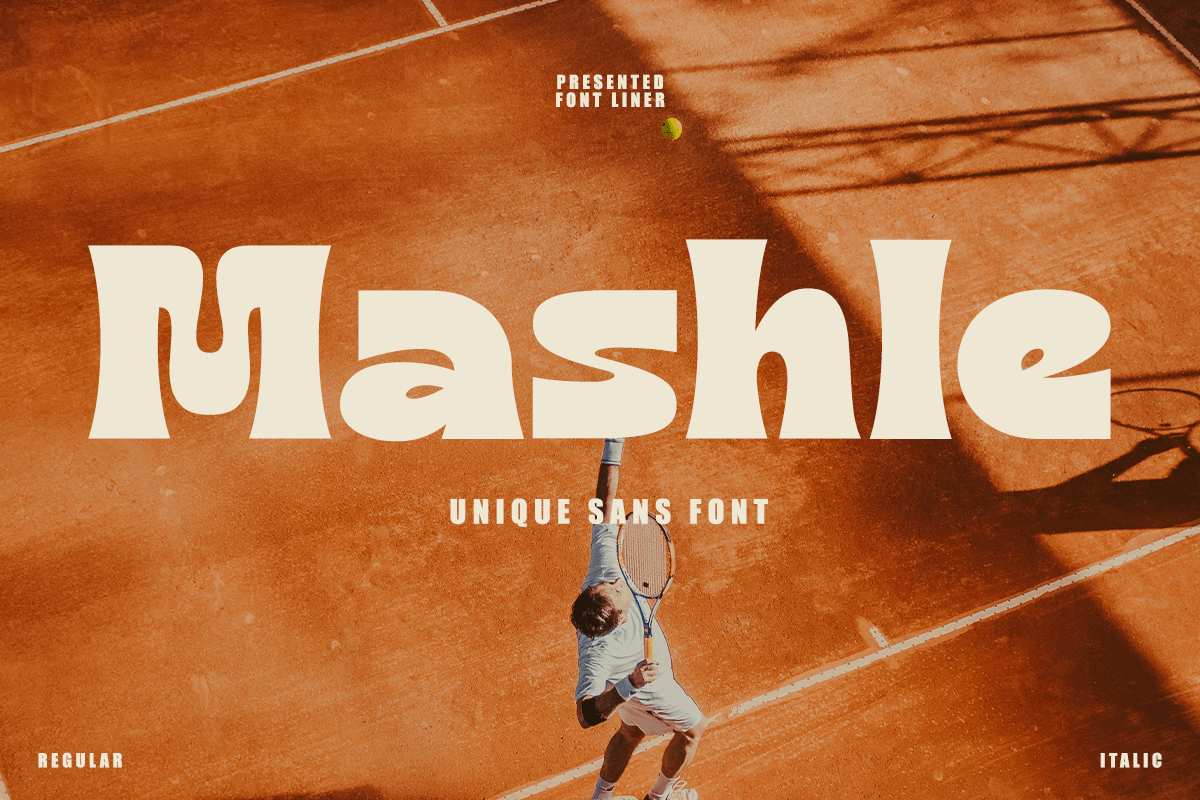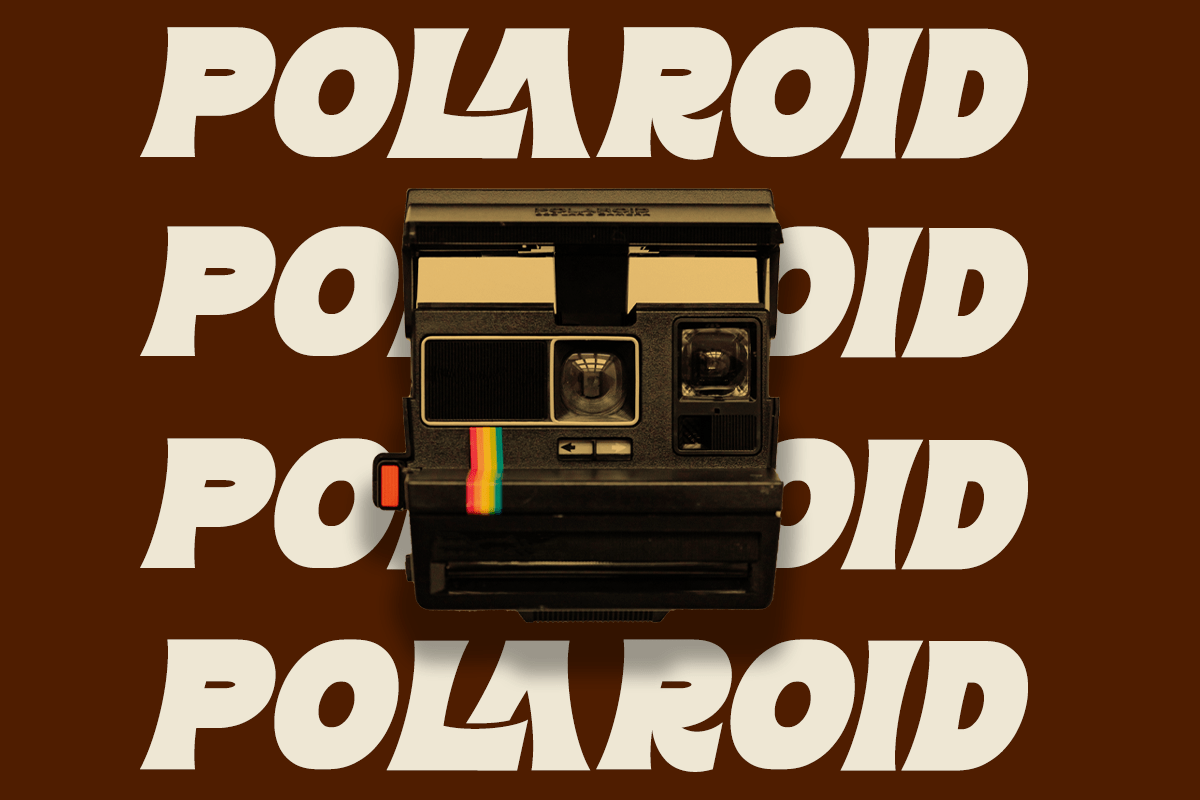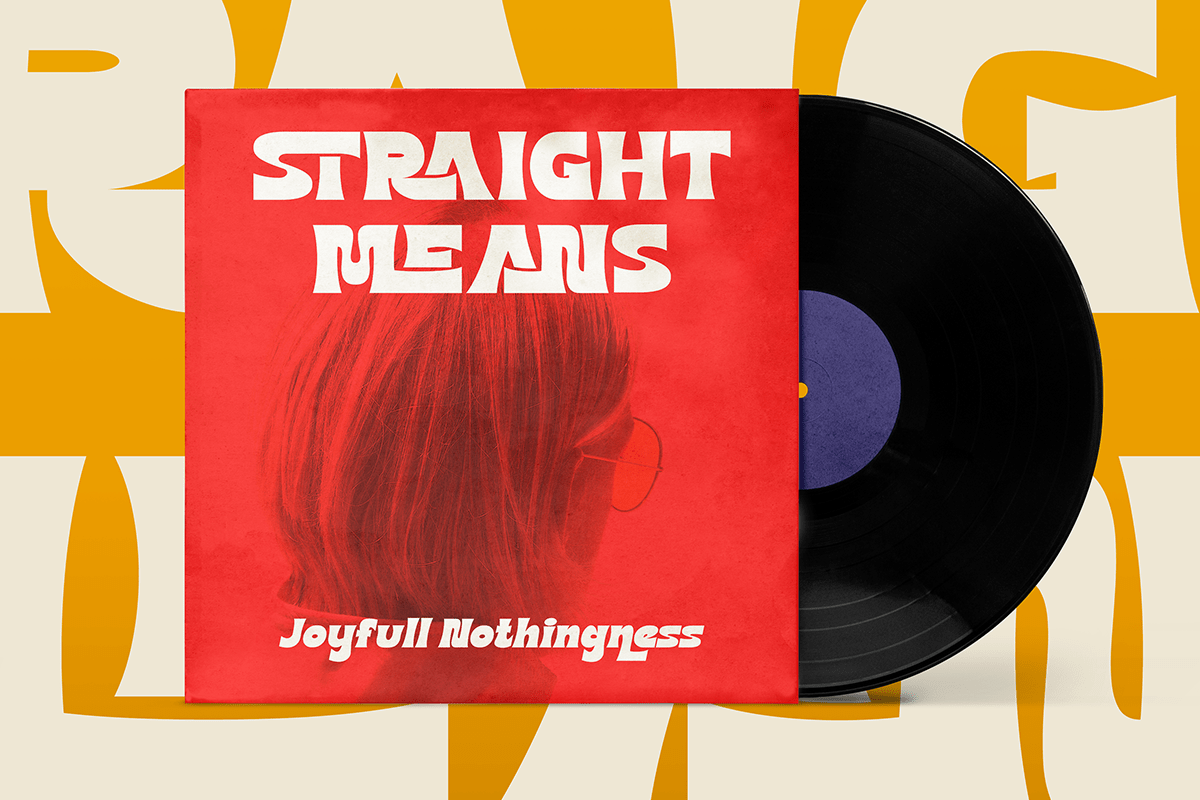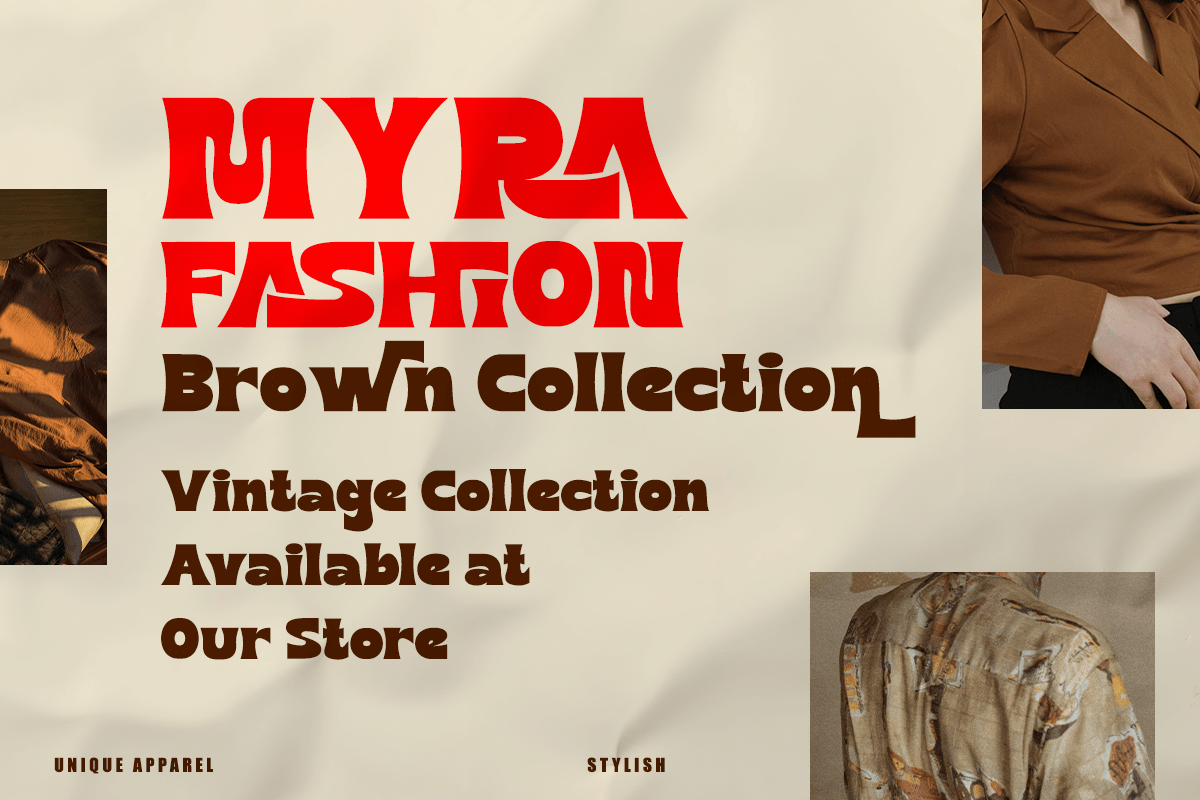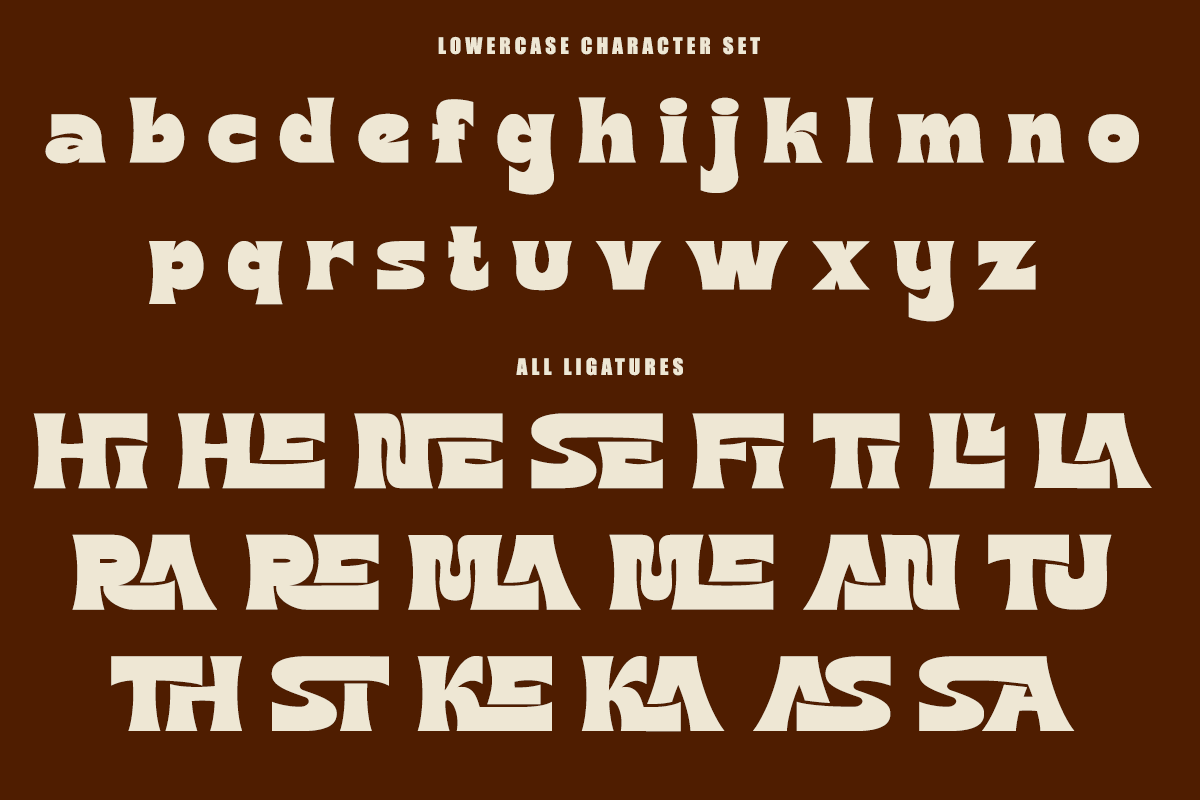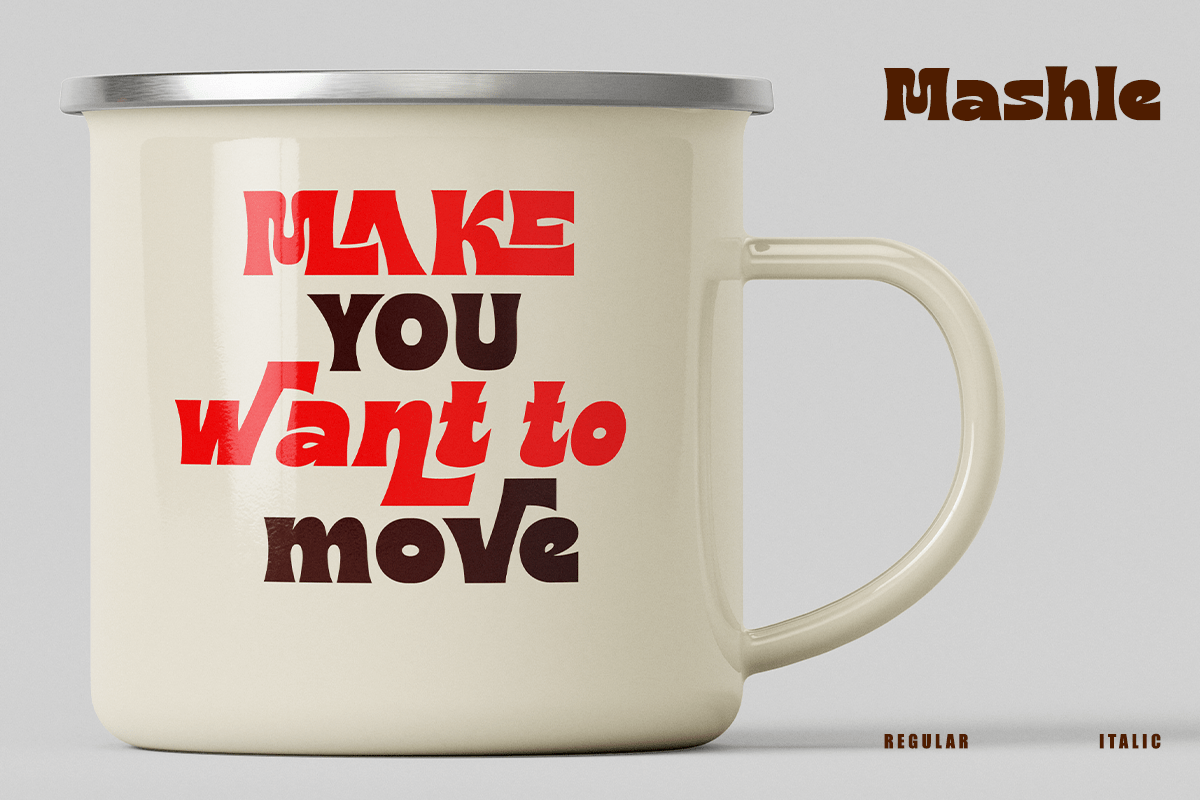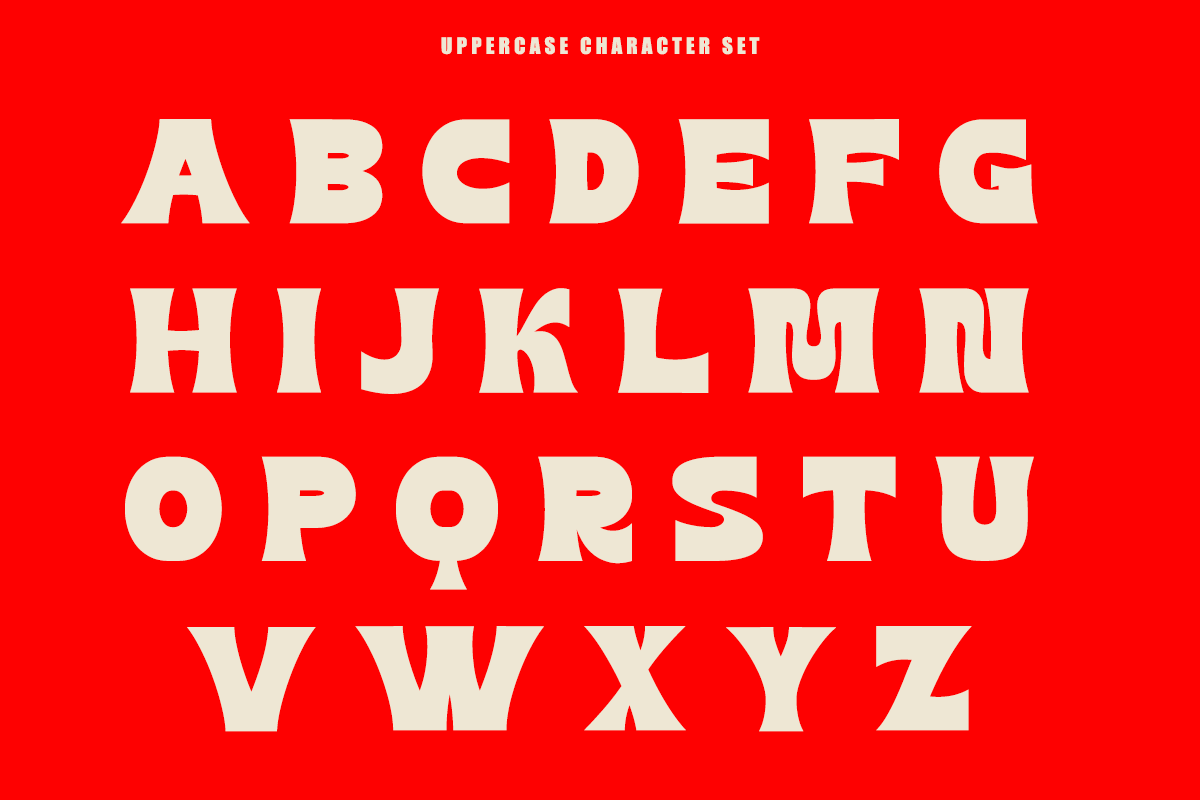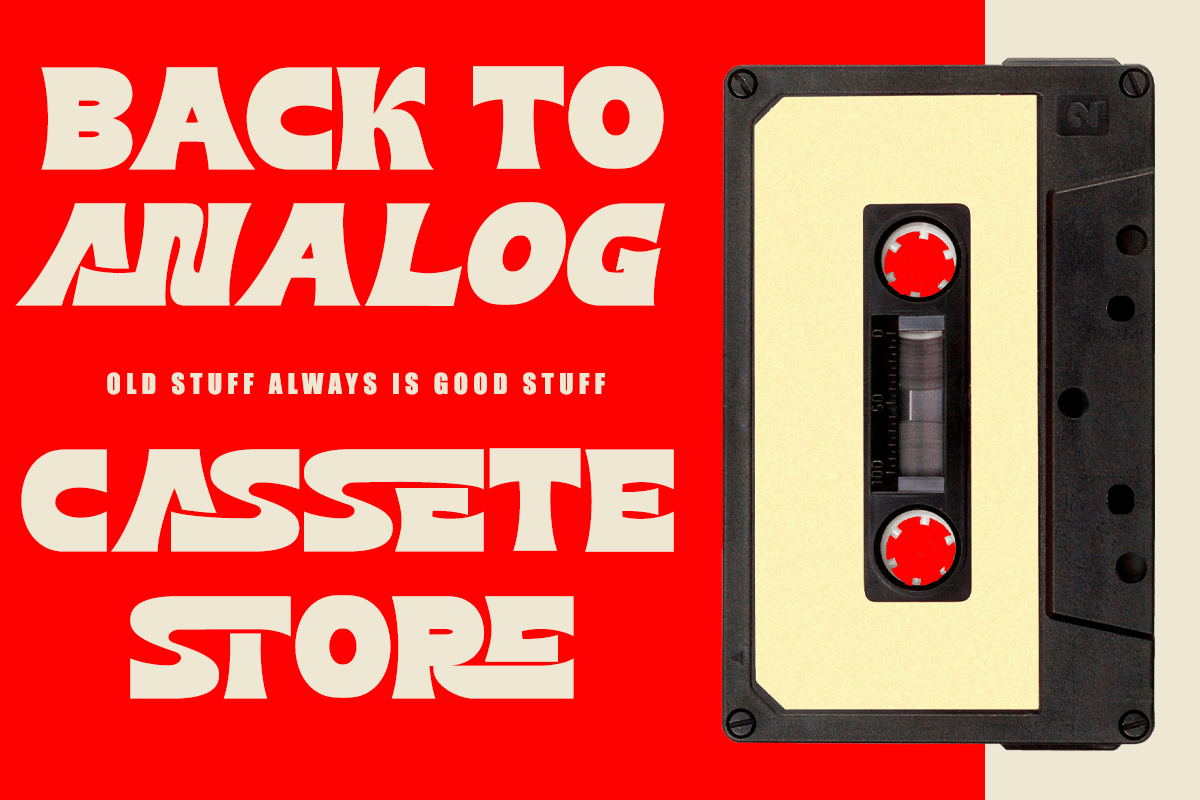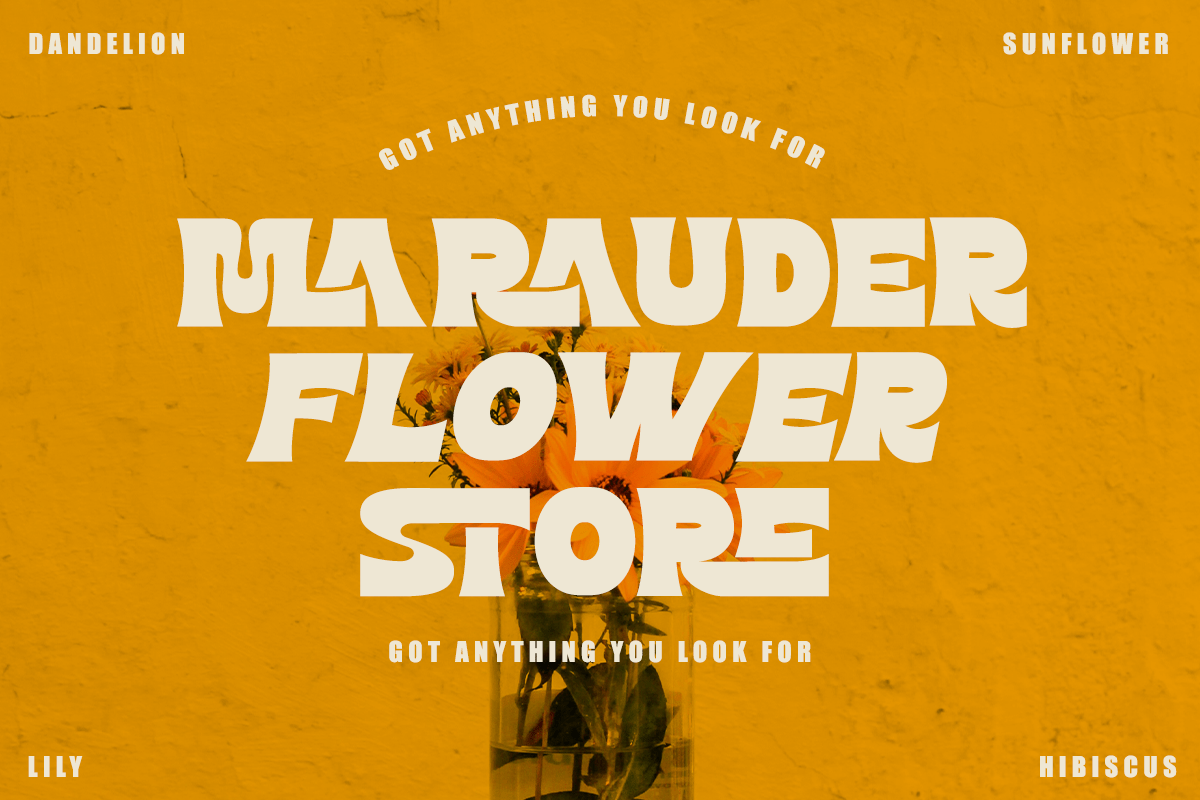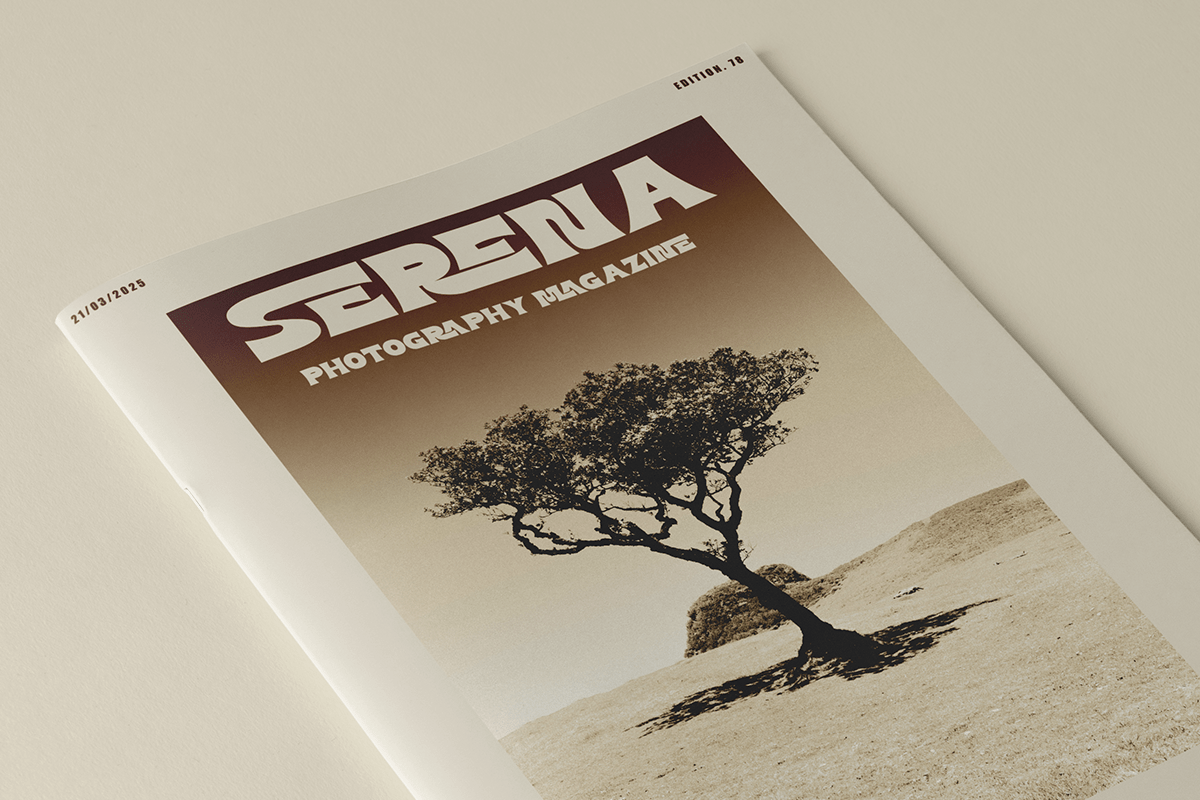
Mashle – Unique Display Sans Font
Mashle is a bold display sans font with a distinctive geometric style inspired by retro futurism, experimental typography, and modern graphic design. Featuring strong angular shapes, unique cut details, and a powerful visual presence, this typeface delivers eye-catching headlines while maintaining excellent readability. Its unconventional character makes Mashle the perfect choice for designers who want to create bold and memorable visual identities.
Designed for branding, posters, album covers, packaging, editorial layouts, fashion campaigns, streetwear, music promotions, magazines, merchandise, product labels, social media, advertising, and creative agencies, Mashle performs beautifully across both print and digital media. Whether you’re creating impactful logos, magazine titles, product packaging, or promotional graphics, this font adds confidence, originality, and contemporary style to every project.
Mashle includes uppercase and lowercase characters, stylistic alternates, multilingual support, numerals, punctuation, and symbols, providing designers with complete creative flexibility. From bold branding and vintage-inspired packaging to modern editorial layouts and digital campaigns, Mashle is the perfect display sans font for projects that demand expressive typography and unforgettable visual impact.
– Stylistic alternates
– Uppercase, Lowercase & Ligatures